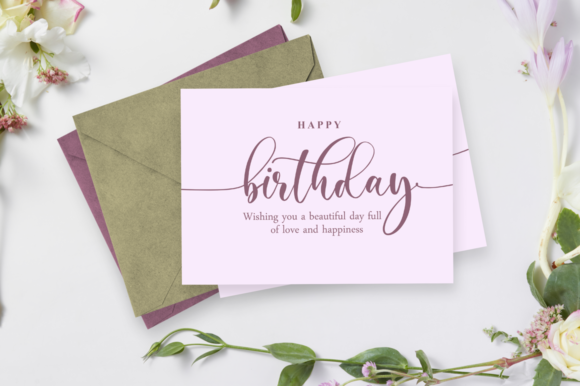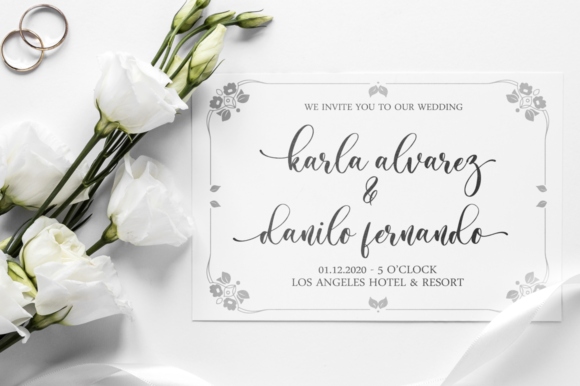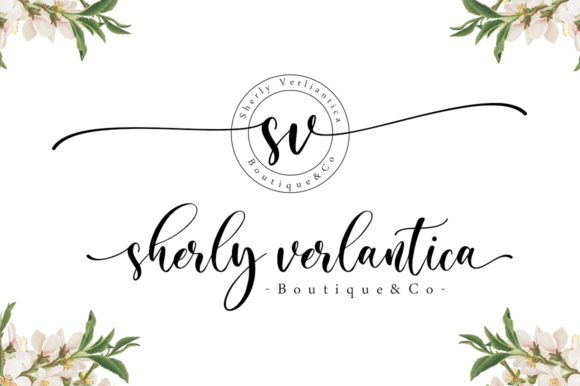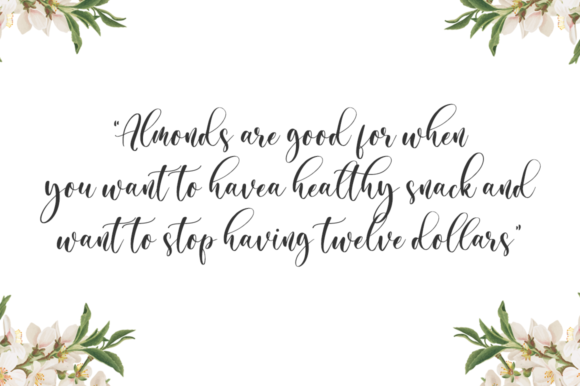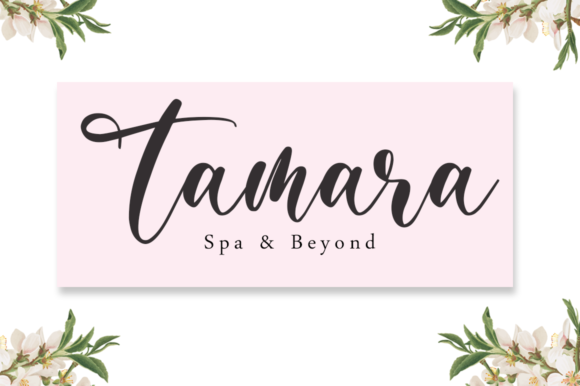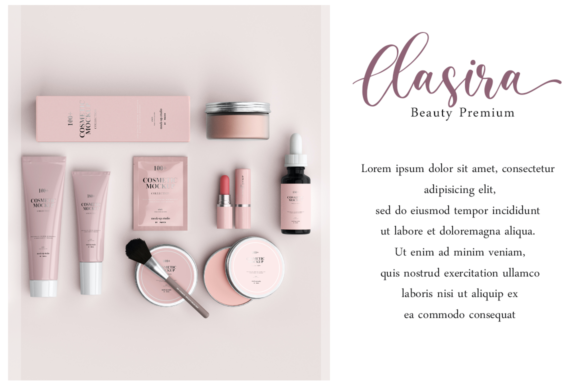
The Designer’s Dream Font: Almond Whisp
Have you ever been in the middle of a design project, pouring your heart and soul into it, only to realize that something is missing? For me, that something was the perfect font. I was working on a wedding invitation design, and no matter how hard I tried, I just couldn’t find a font that captured the elegance and whimsy I was looking for. That was until I stumbled upon Almond Whisp.
A Love Affair with Almond Whisp
Almond Whisp is an elegant and flowing handwritten font that has stolen my heart. ✨ It’s PUA encoded, which means you can access all of the glyphs and swashes with ease! The font features a varying baseline, smooth lines, gorgeous glyphs, and stunning alternates. It maintains its classy calligraphic influences while feeling contemporary and fresh.
- ✨ Elegant and flowing handwritten design
- ✅ Varying baseline for a natural, organic feel
- ✅ Smooth lines and gorgeous glyphs
- ✅ Stunning alternates for added versatility
While Almond Whisp is an amazing font, there are a few things to keep in mind. 🤔 For example, it can be a bit over-the-top for very formal or traditional designs. Additionally, some of the swashes and glyphs may not work well in smaller font sizes. ⚠️ However, these are minor complaints, and overall, the font is incredibly versatile and easy to use.
Almond Whisp was inspired by the beauty of handwritten calligraphy. The designer wanted to create a font that captured the elegance and sophistication of traditional calligraphy, while still feeling modern and fresh. The result is a font that’s perfect for designs that need a touch of luxury and whimsy.
| Font Name | Almond Whisp Font |
A: PUA (Private Use Area) encoding is a way of encoding fonts that allows designers to access additional glyphs and swashes. This means that you can easily access the extra features of Almond Whisp without having to use special software or plugins.
Q: Is Almond Whisp suitable for body text?
A: While Almond Whisp is a beautiful font, it’s best suited for headlines and titles rather than body text. This is because it’s a script font, and script fonts can be difficult to read in large blocks of text.